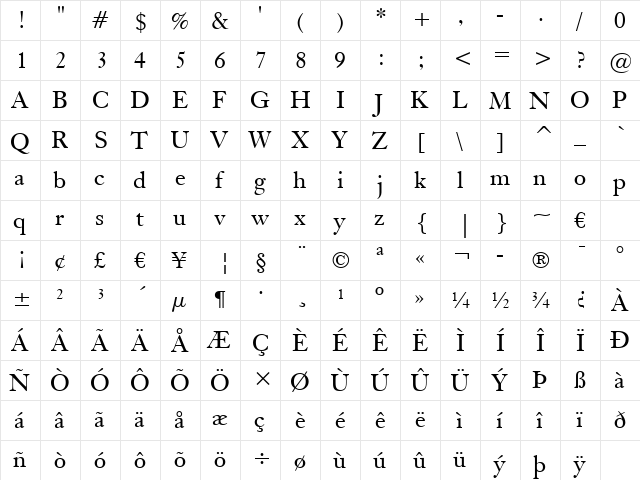
Kis BT Roman
Design Context for Kis BT Typeface
Kis BT takes a measured approach to typography — its balanced proportions and neutral character make it a reliable workhorse for both digital and print work.